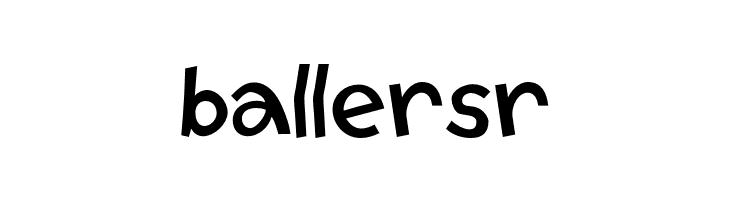
Esperanza!" Font
An elegant script font with ornate, flowing letterforms.
Sci Fied 2002 Font
A futuristic, rounded font with a sleek, modern design.
Adhawin-Tamil Regular Font
A classic serif font with elegant strokes and moderate contrast.
Fira Sans SemiBold Font
A modern, semi-bold sans-serif font with clean lines and excellent legibility.
Schwabach Font
A bold and ornate Blackletter font with a medieval aesthetic.
Aristotle Punk Font
A bold, distressed font with a grunge aesthetic and rebellious style.
Quark Font
A bold, angular font with a futuristic and geometric style.
Warownia Bold Extended Font
A bold, extended typeface ideal for impactful headlines and display use.
Jockey One Font
A bold, modern sans-serif font with geometric shapes and clean lines.
Fighting Spirit TBS Bold Font
A bold, dynamic font with sharp, angular strokes and a graffiti-like style.
Vtc-NueTattooScript Font
An ornate and decorative script font with elaborate swashes and flourishes.
Oxygen Font
Angelus!" Font
A modern font with geometric and organic elements, offering versatility and readability.
Maribel Suit Font
A modern, condensed sans-serif font with a geometric structure.
NAL Hand Font
A playful, casual handwritten font with rounded edges and moderate thickness.
Jack and the Beanstalk Font
A whimsical and decorative font with intricate loops and curls.
Andrade Swash Font
An ornate and decorative font with intricate swirls and flourishes, perfect for elegant designs.
Tamworth Gothic Font
A sleek, modern font with a dynamic slant and bold, condensed characters.
And Then It Ends Font